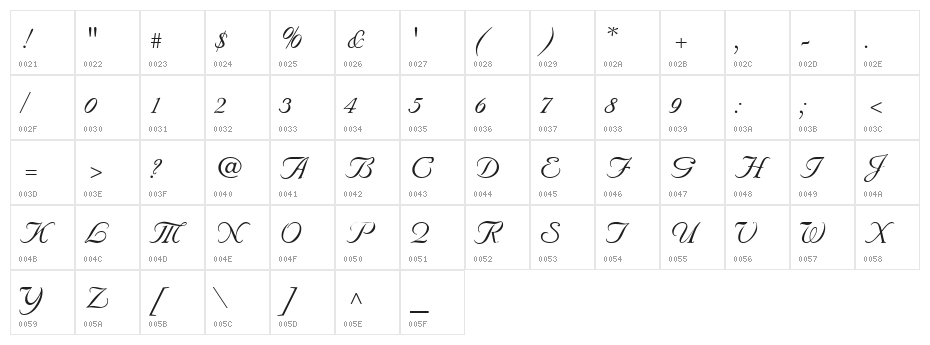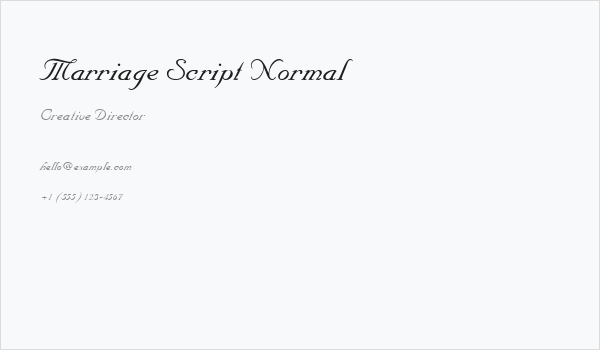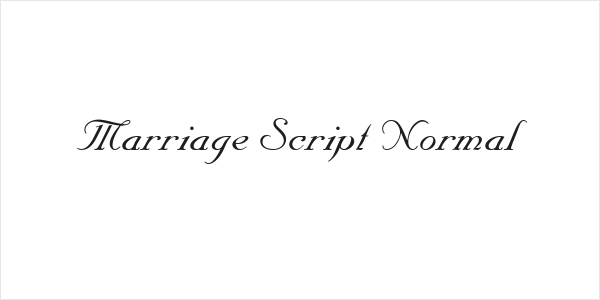
Marriage Script Normal Font
Marriage Script Normal Description
This elegant script font features flowing, cursive letterforms that exude a sense of sophistication and romance. The uppercase letters are ornate with intricate loops and flourishes, while the lowercase letters maintain a graceful continuity. The numerals are styled to match the script's fluidity, and the special characters are designed with similar decorative elements. This font is perfect for formal invitations, elegant branding, and any project that requires a touch of class and refinement.
| Use Case | Headlines, Invitations, Logos |
| Proposed Projects | Ideal for wedding invitations, elegant branding, greeting cards, and formal event programs. |